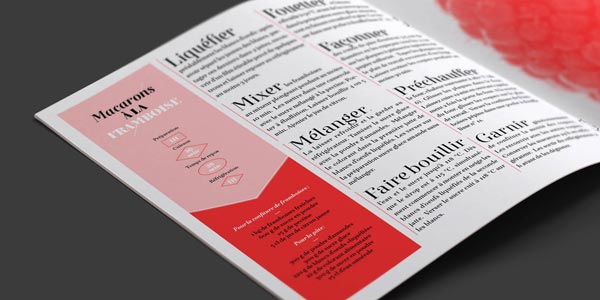
Exquise FY – Serif Type Family.
Exquise FY is an elegant type family consisting of 6 fonts (3 weights plus italics). The round and elegant font family by Fontyou is influenced by typical didone typefaces. Exquise FY is packed with lots of beautiful ligatures. The complete font family is available as web font and desktop font. Exquise FY is a decorative typeface that works great for headlines and texts in book publications and magazines.